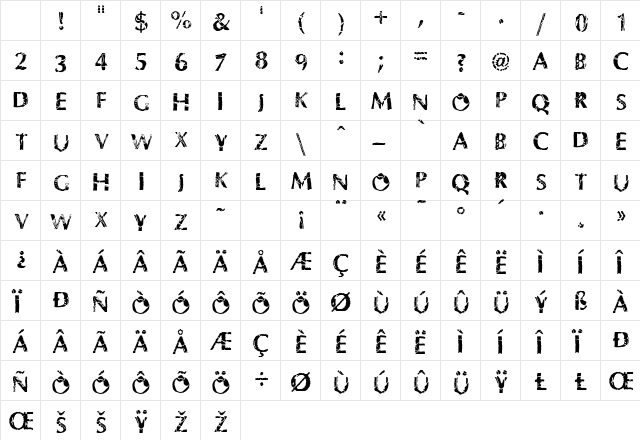
Complete Dinosaur Fontasaurus Text glyph index. Displaying only characters natively supported by Dinosaur Fontasaurus Text font.
Dinosaur is a composed and adaptable typeface that performs quietly and consistently across a wide range of design contexts.